TypeTogether’s New Website
We are pleased to present our new website, designed by Electric Pulp and implemented by Dinamic Studio. The site is powerful, clear, and loaded with options you can try for yourself.
TypeTogether specialises in editorial typefaces with personality, so that’s what you should see here — a simple and elegant website that allows you to easily find information and fonts by a typeface’s personality, intended use, language, and more. The new website has been designed by the Texas-based studio Electric Pulp and implemented by the Argentinian team Dinamic Studio.
The typeface in paragraphs is our Portada, the serif that can brilliantly replace a sans on small screens, while Adelle Sans handles all the headers. You should sense three main things from the new site: TypeTogether creates editorial style through our retail catalogue and our custom type families for brands; we invest in education; and we want you to know who we are. So poke around to see what’s new. And try the live type tester on every page in our Fonts section!
The brand new Fonts section presents all our type families in just one look. Typefaces can be filtered by script, category, style, and intended use on the Fonts main page. Try selecting more than one option to find exactly what you need. The Quick View option provides a preview image and enough information to pique your interest. It’s a buffet for your font-loving eyes!
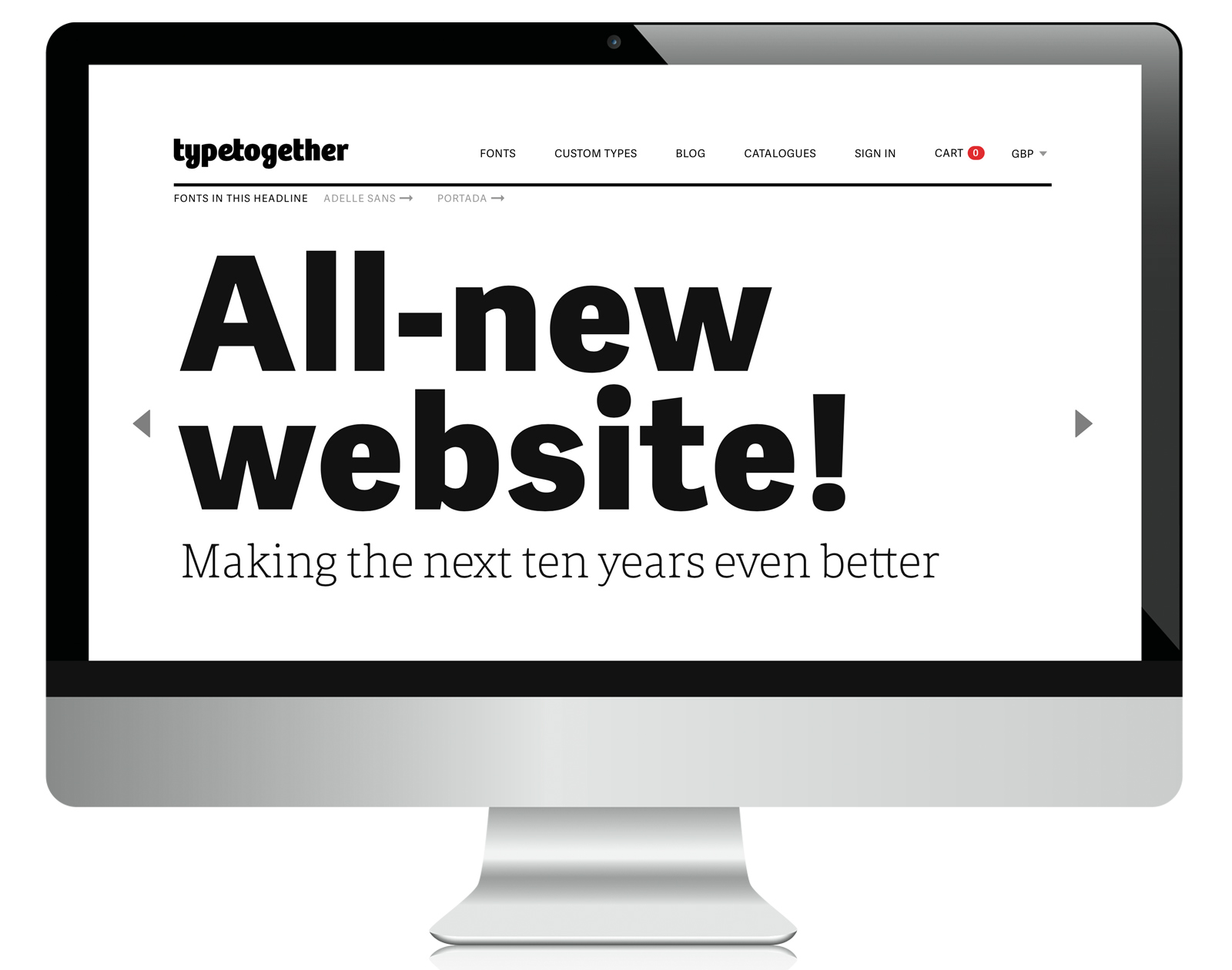
Discover all our typefaces in the Fonts menu, which is easily accesible via the top navigation.
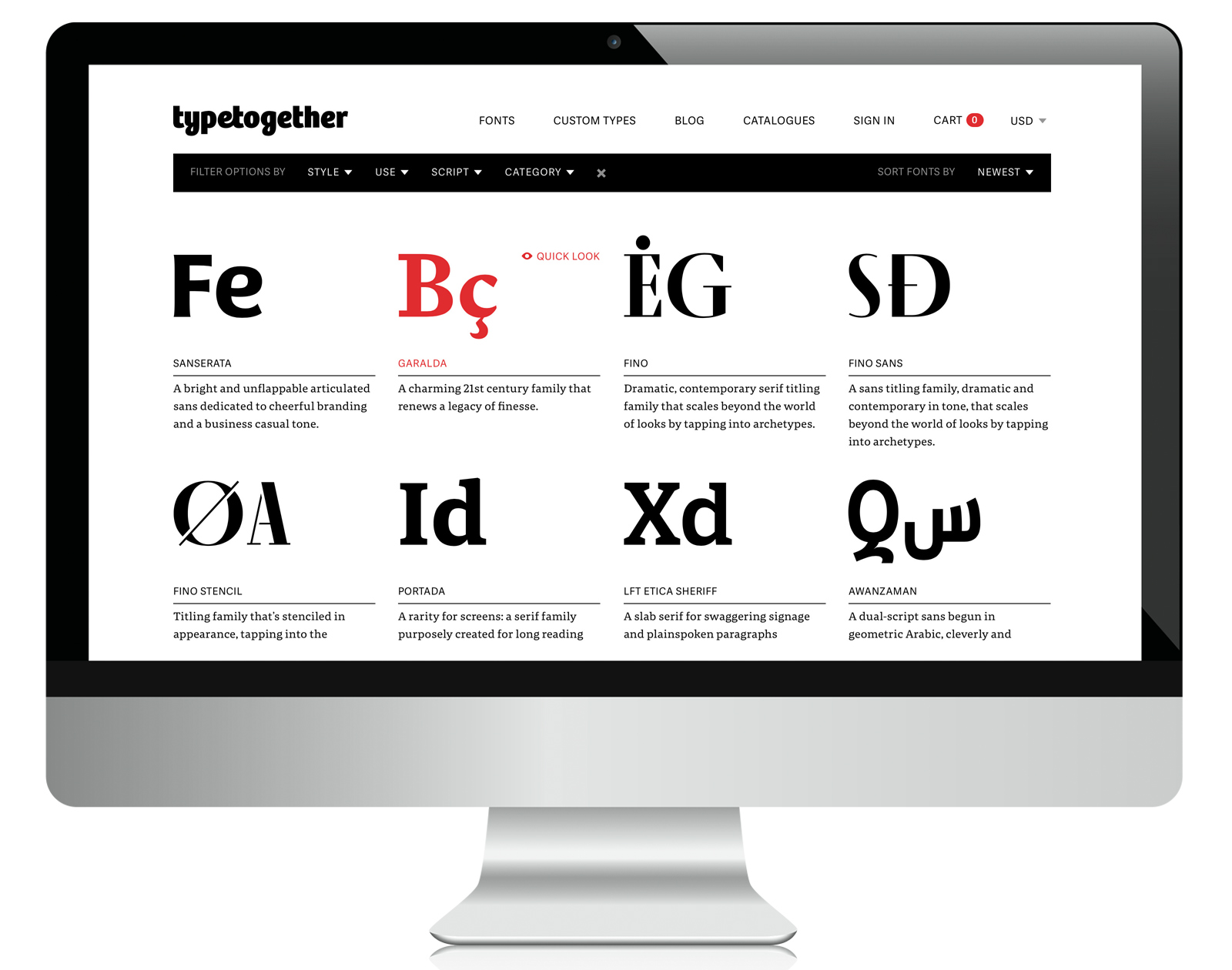
Try the filters in the new Fonts section: style, use, script, and category.
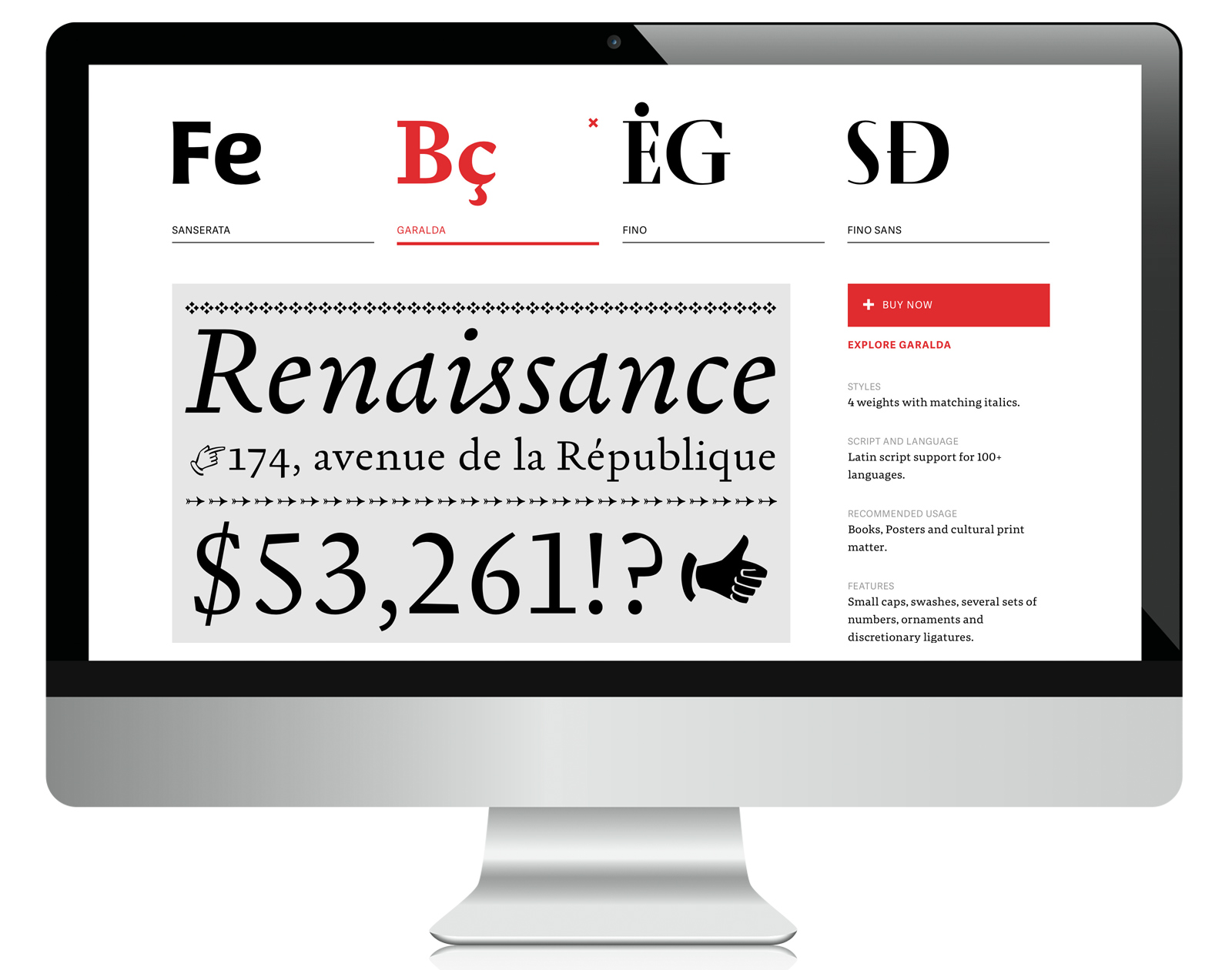
Use Quick Look for instant acces to a large preview, information snippets, and recommended uses.
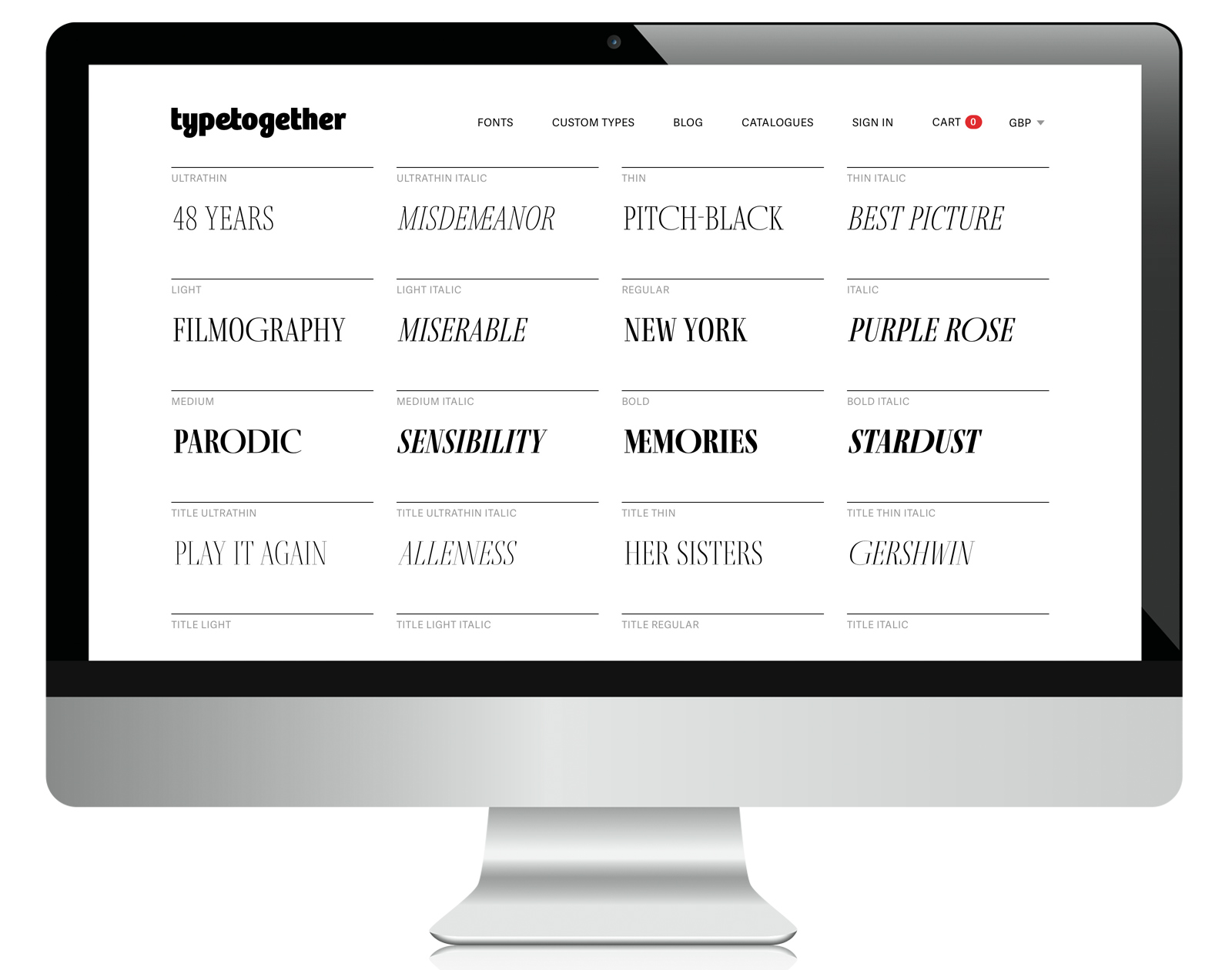
See all the styles of the entire family on one page!
One of the great things about the new website is the ability to test our typefaces on almost every page. Type your own text, use the text provided, mix styles within one family, or mix families to find the best combination for your needs, including OpenType features. Get your Rambergefonstively on!
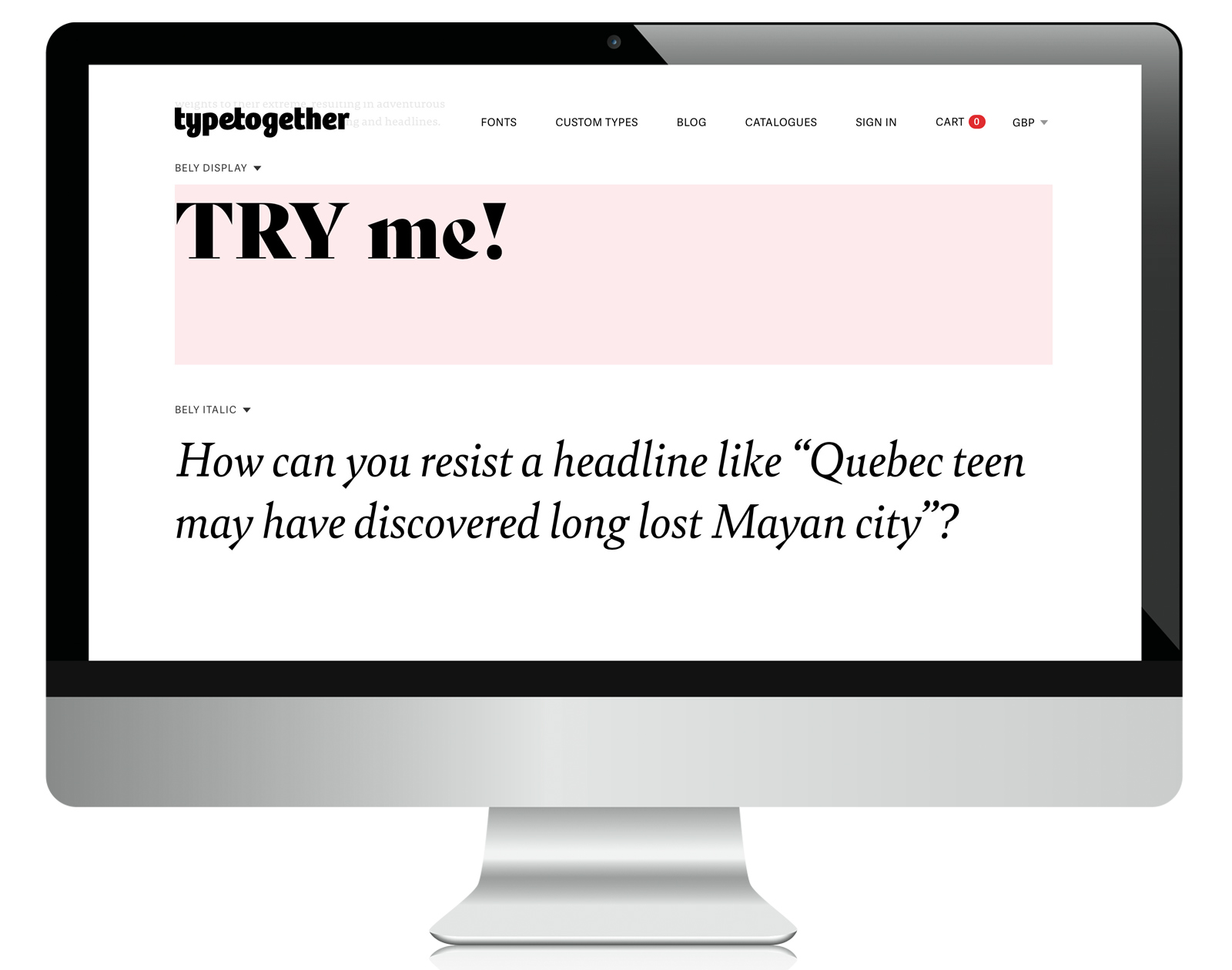
Testers are active on every font page, so go crazy! Type in your own text and play with all the options.
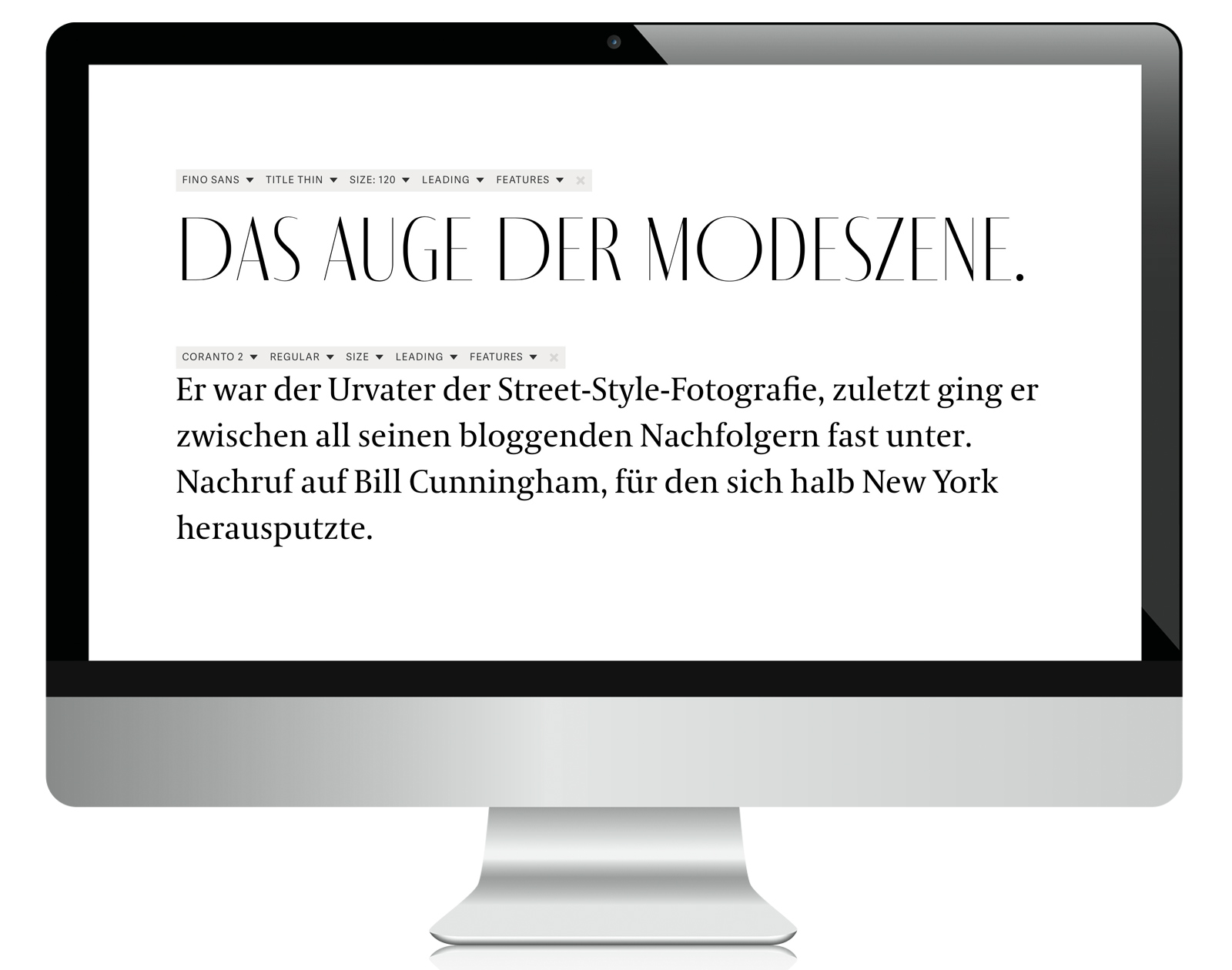
Find the perfect match by combining different families.
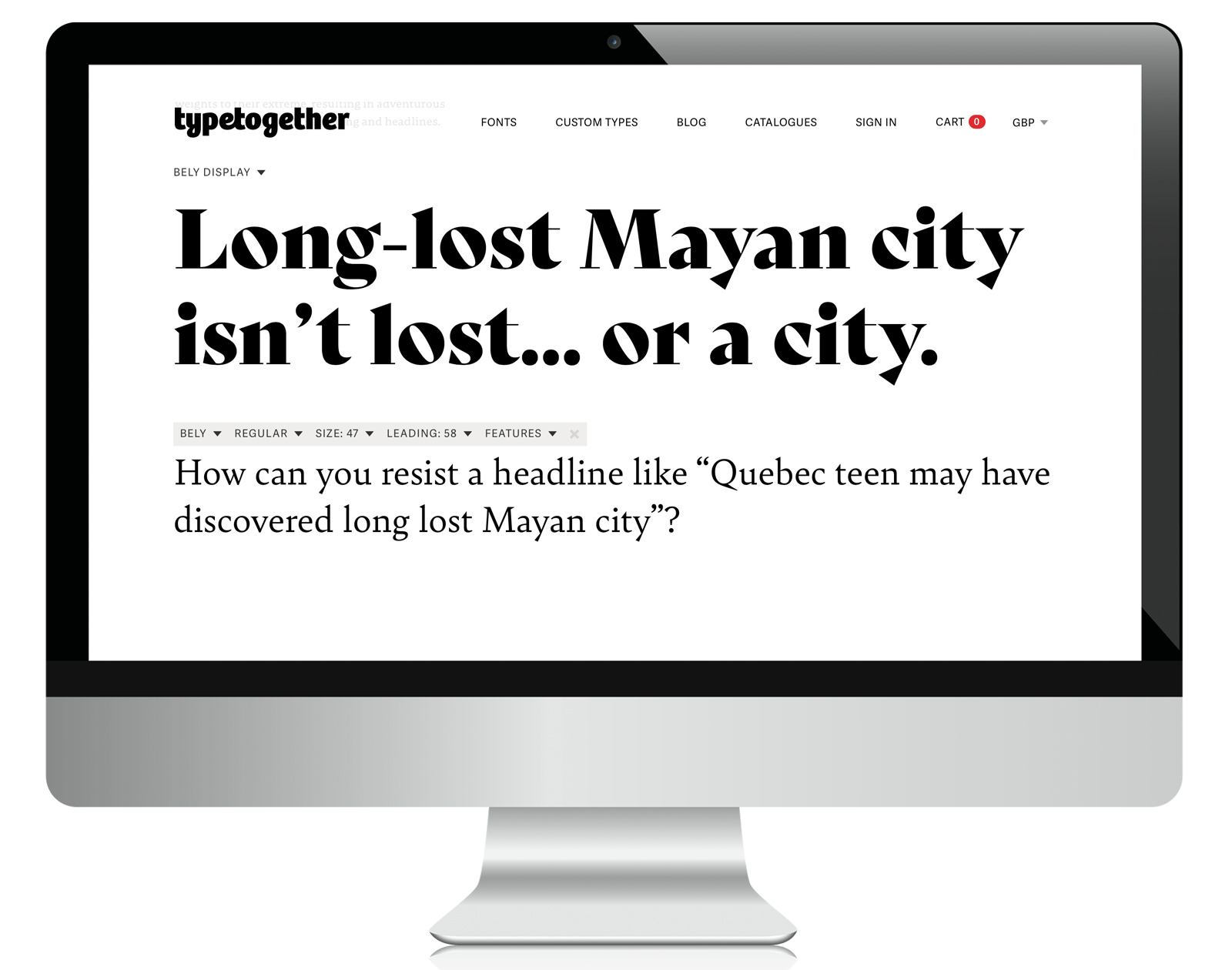
Or combine different styles from the same family.
Our new blog includes a wide range of information that can be filtered by category, topic, and font. The articles will cover education, our typefaces in use, custom type projects, publications, and of course news about the foundry and the team that supports and creates our catalogue. These sections existed in our previous website, but now the space for content has increased, the visual aspect has improved, and it’s easier to access and read. Inspiration and encouragement live here.
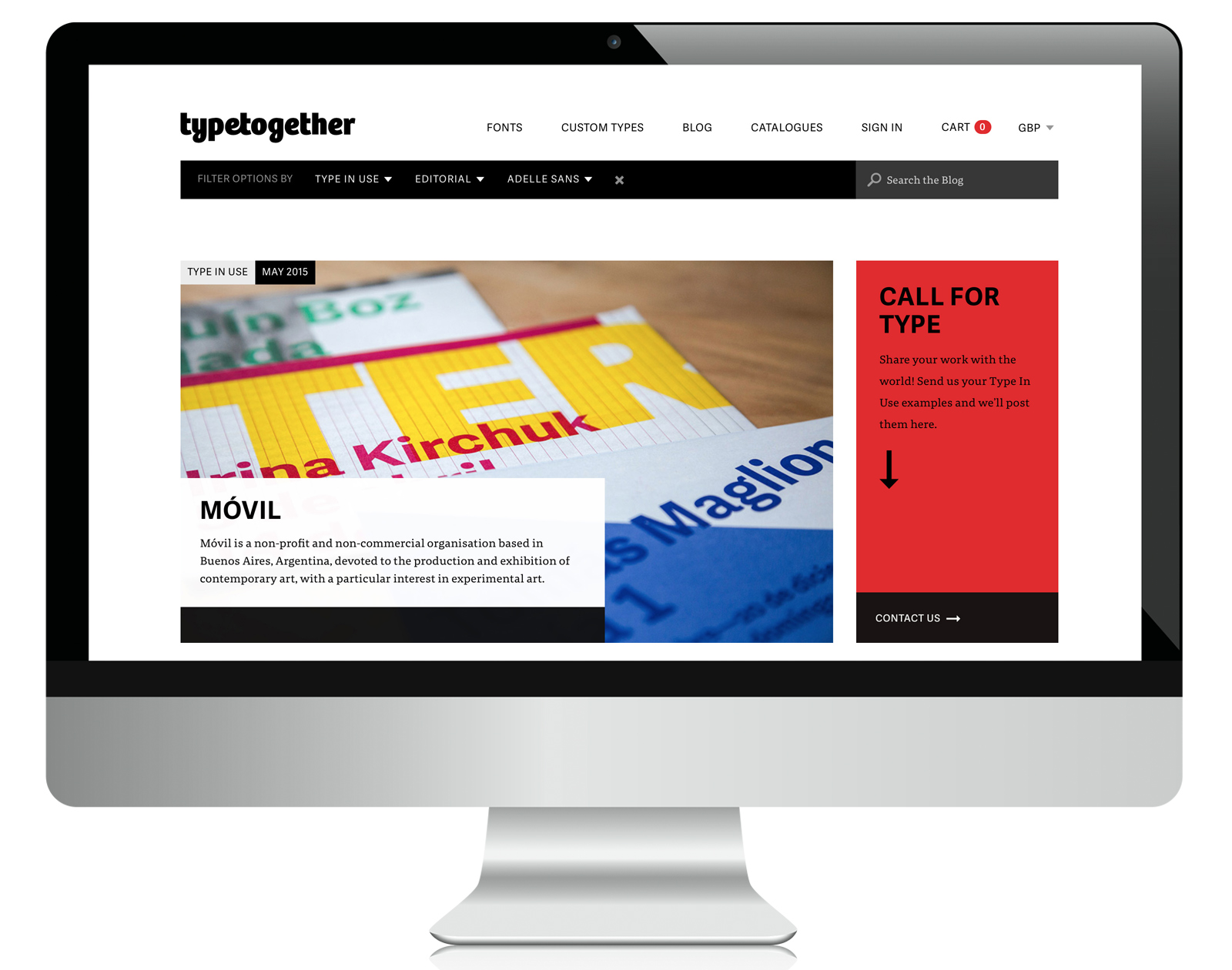
The new blog comprises all the information about events, type in use, new releases, and interviews. Filters narrow down the information to exactly what you're looking for. This example shows Type in Use editorials using Adelle.
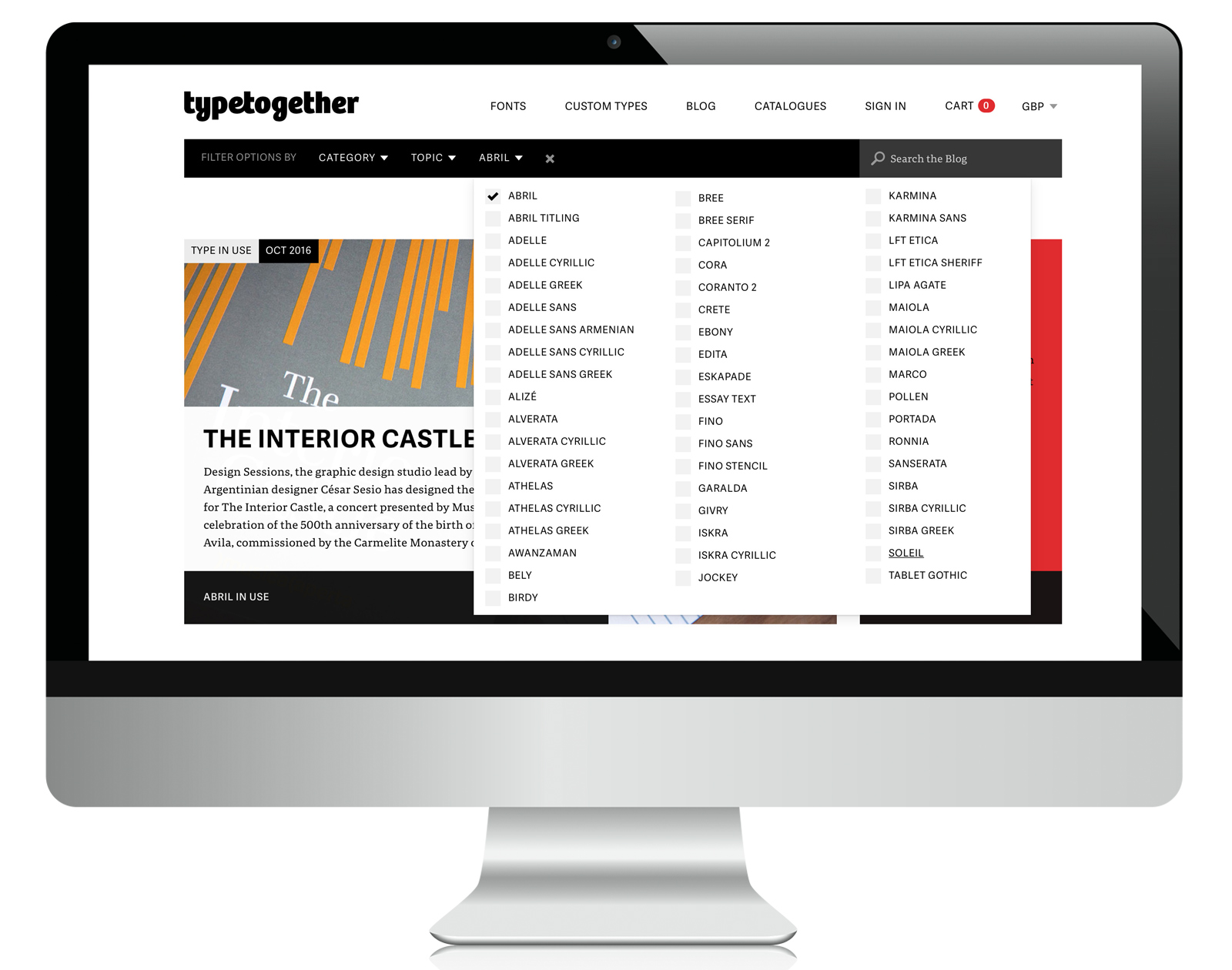
Find information by category, topic, or font.
Brand equity — the distinctness of a brand and the trust the customer has in the brand — is important when it comes to retaining customers and growing your business. So whether in digital apps, printed corporate materials, or persuasive paragraphs, an organisation’s voice should be carried consistently in their choice of typeface. That’s where we come in. Since everything you do is communication, TypeTogether creates solutions based around communicating with customers. We create custom typefaces to transmit the essence of your brand in every way you communicate. We’ll help you combine your distinctiveness with your customer’s trust. Find out how in the Custom Type section.
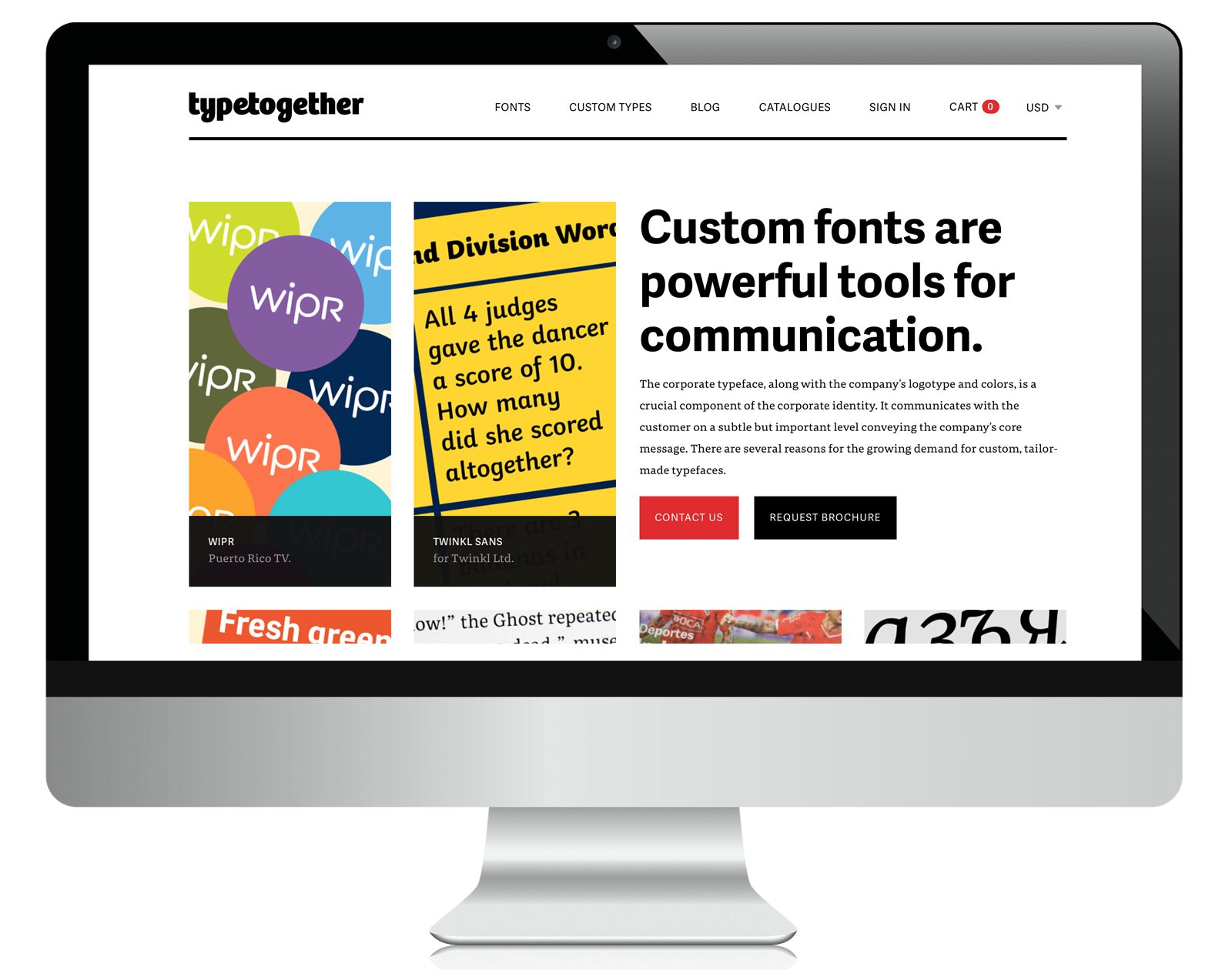
Homepage of the Custom Type section.
The process that resulted in Twinkl Sans, a family for the educational company Twinkl, is explained step by step.
The Catalogues section has seen a major change — better quality images and an easier shopping system. We have new posters, like AwanZaman, so grab them before they’re gone!
Filters are also implemented in the Catalogues homepage. Each item offers detailed information and photographs to help you make an informed decision.
Without a doubt, TypeTogether’s main asset is our team of skilled, cosmopolitan collaborators. From the founders and designers to the engineers and communicators, we want you to know who we are and what motivates us. Check out the personal introductions to each of the talented teammates from around the world in About us.